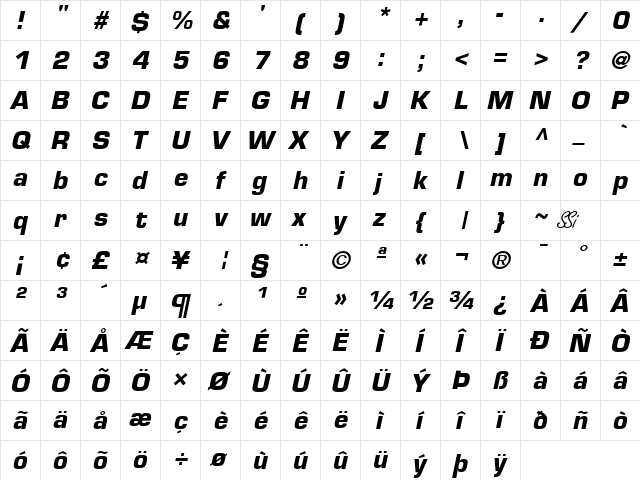
Palindrome Black SSi Bold Italic
Design Context for Palindrome Black SSi Typeface
Palindrome Black SSi offers clean, dependable letterforms without strong stylistic allegiance, making it a practical choice for designers who need flexibility. The slanted form adds forward momentum and visual energy. The heavy weight commands attention and anchors typographic hierarchies.